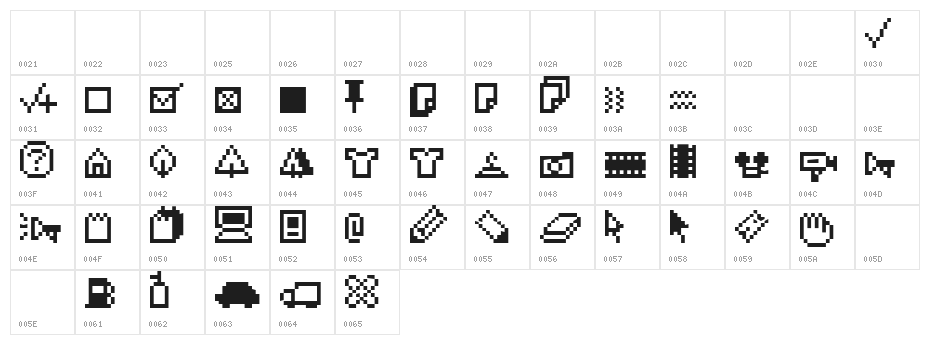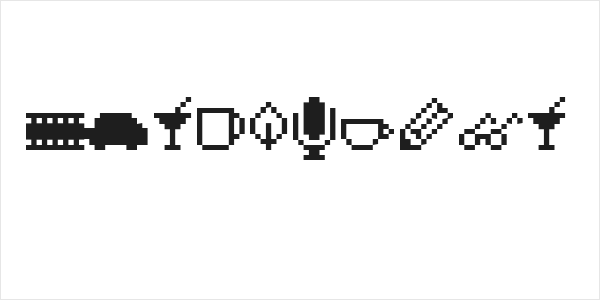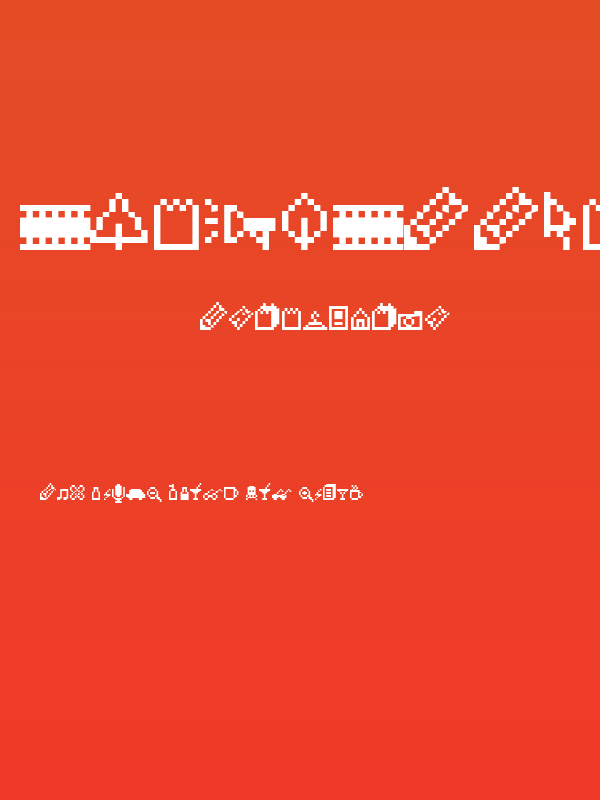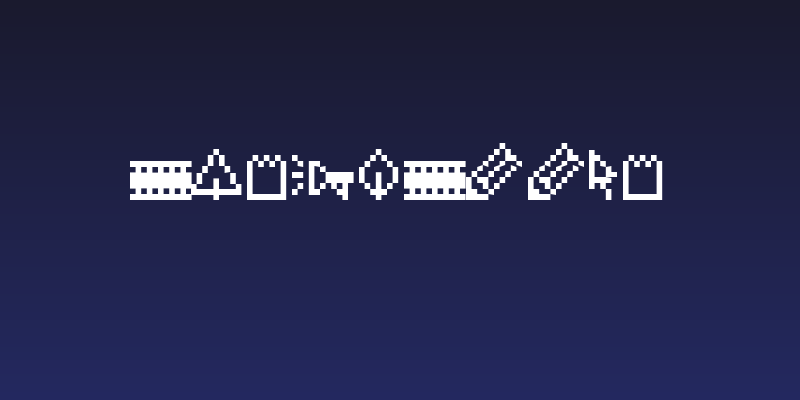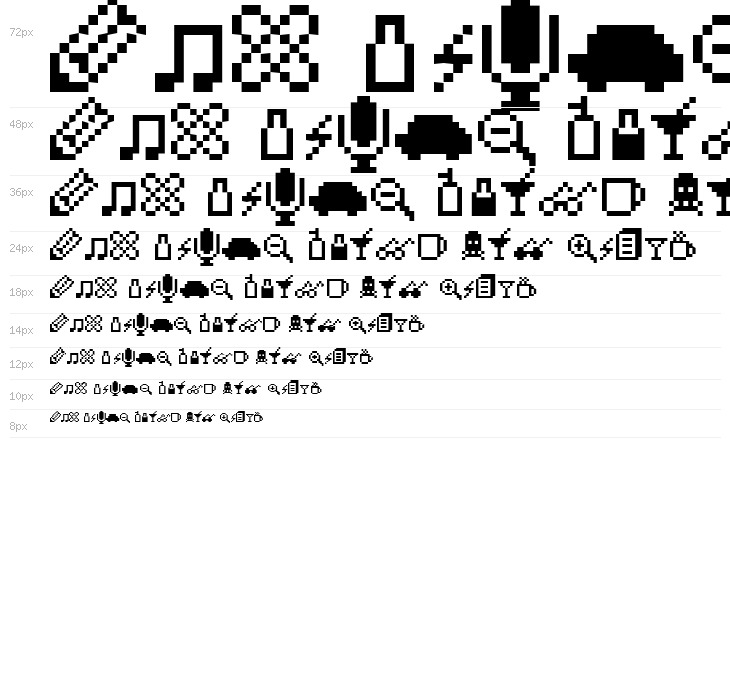
IconBitTwo Font
IconBitTwo Description
A pixel-based icon set featuring a variety of everyday objects and symbols, rendered in a bold, blocky, low-resolution style reminiscent of early digital graphics. The icons are highly geometric, with sharp corners and minimal detail, making them easily recognizable at small sizes.
| Overall Style | Retro, Decorative, Pixel Art |
| Use Case | Icons, UI elements, Game assets, Decorative graphics |
| Proposed Projects | Retro-themed games, digital dashboards, user interfaces, pixel art projects, educational tools, signage. |